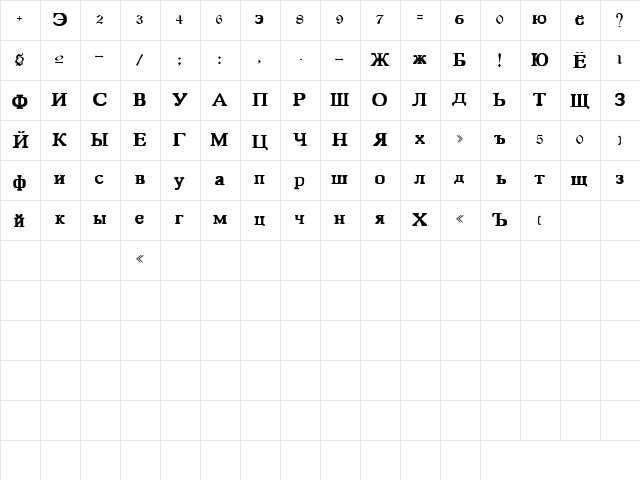
Cyrillic Basic Normal
Design Context for Cyrillic Basic Typeface
Cyrillic Basic is a composed and adaptable typeface that performs quietly and consistently across a wide range of design contexts.